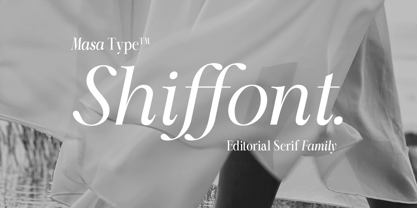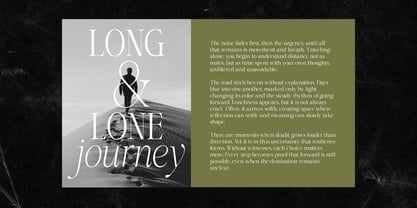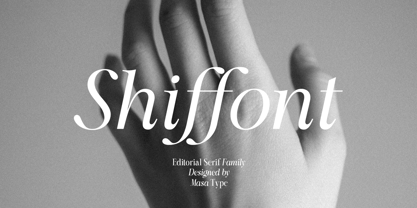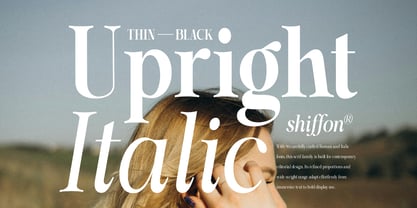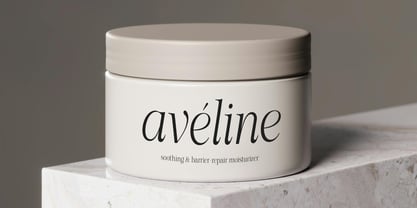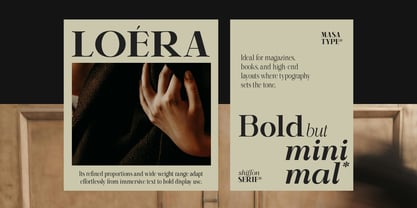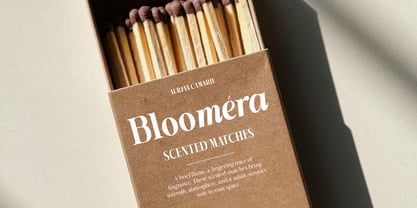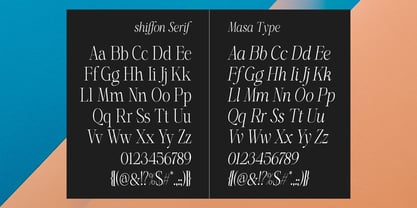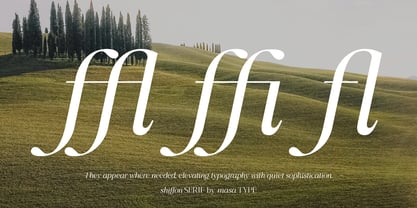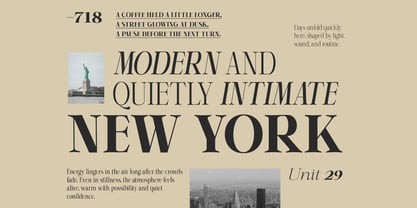
Shiffont Serif
by Masa Type
The Shiffont Serif Font Family was designed by Jumm ati and published by Masa Type. Shiffont Serif contains 87 styles and family package options. More about this family
Shiffont Serif is a classic serif typeface from Masa Type, crafted for modern editorial storytelling with elegant, high-contrast letterforms and refined details. It blends the charm of traditional print with a contemporary attitude, making it perfect for magazine headlines, book layouts, and sophisticated branding that needs a dramatic yet readable voice.​With the tagline “Classic Serif for Modern Stories,” Shiffont Serif brings a timeless, luxurious feel to both print and digital projects. Its balanced x-height, graceful curves, and expressive ligatures are designed to create attention-grabbing titles while still supporting longer narrative content with clarity and style. Typeface Features Styles: Regular and Italic, carefully tuned for display and editorial use. Character set: Extended Latin support for multilingual projects across a wide range of European languages. OpenType features: Standard ligatures, contextual alternates, stylistic sets, small caps, fractions, superscript/subscript, ordinals, and full kerning for professional typography control. Best use cases: Editorial headlines, magazine covers, feature spreads, luxury fashion and beauty branding, book covers, and any design that seeks a curated, elegant, and memorable serif voice.